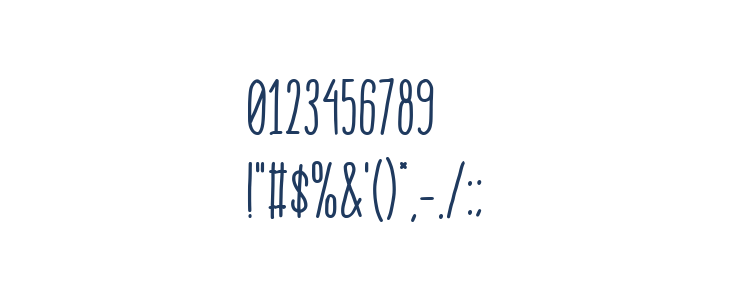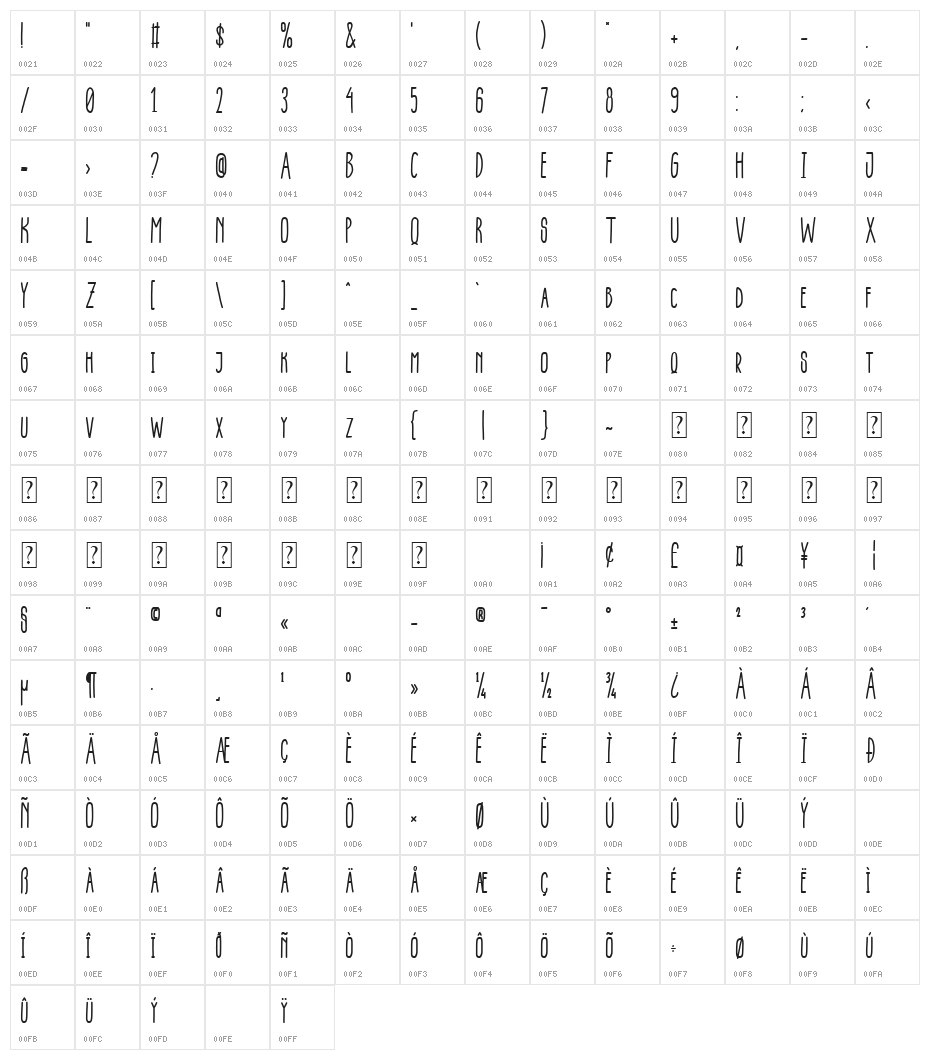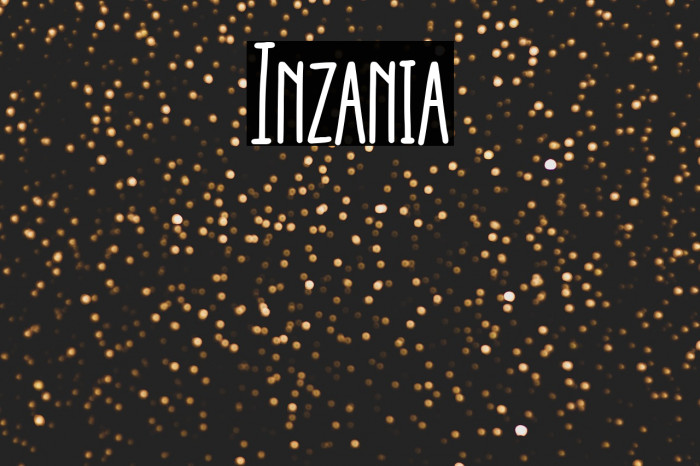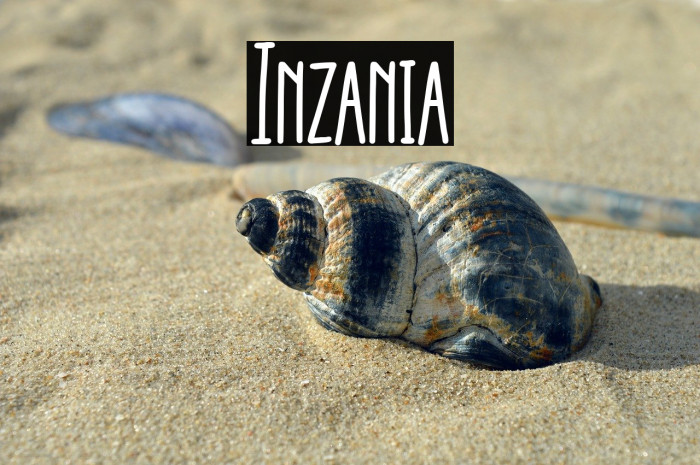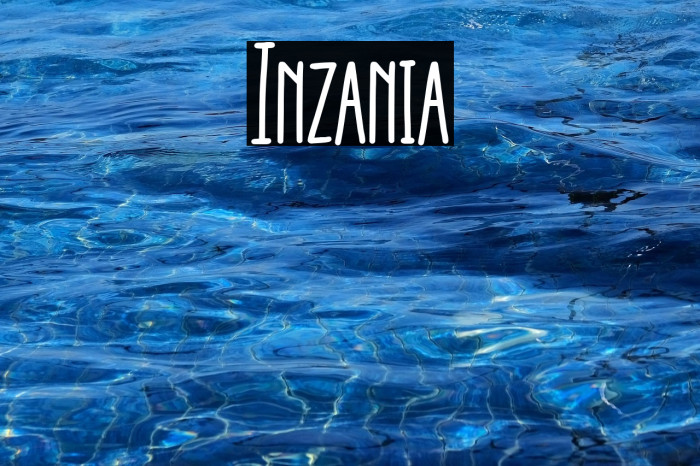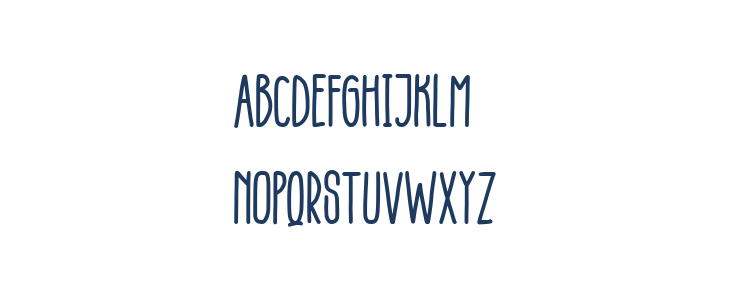
Inzania Font
Inzania Description
This font features a playful and informal style, characterized by its tall, narrow letters with rounded edges. The strokes are consistent in width, giving it a uniform appearance. The uppercase and lowercase letters maintain a cohesive look, with slightly exaggerated heights that add to its whimsical charm. The numerals and special characters are designed to match the overall aesthetic, making it suitable for creative and casual applications. Its simplicity and readability make it versatile for various design projects.
| Width | Condensed |
| Overall Style | Playful |
| Proposed Projects | Ideal for children's books, greeting cards, posters, and playful branding. |